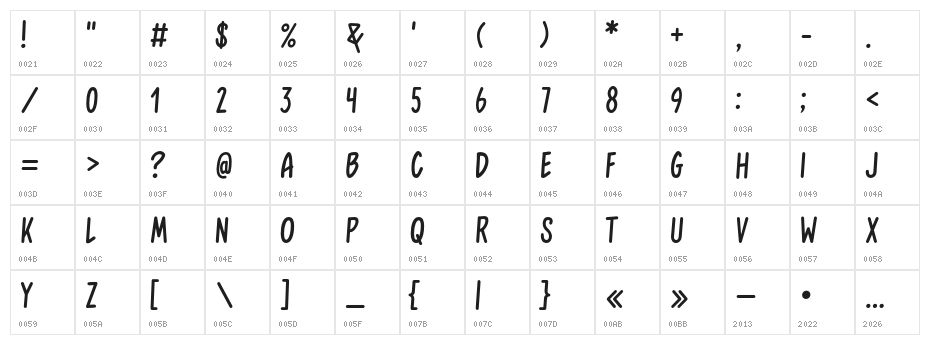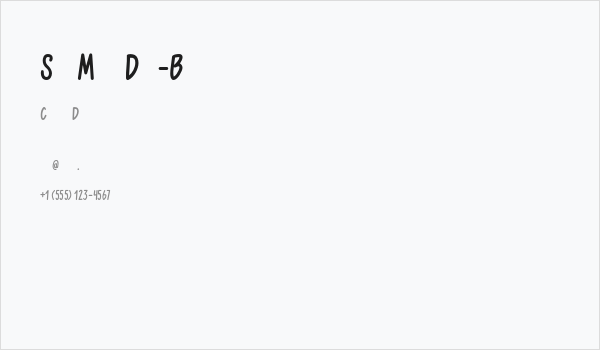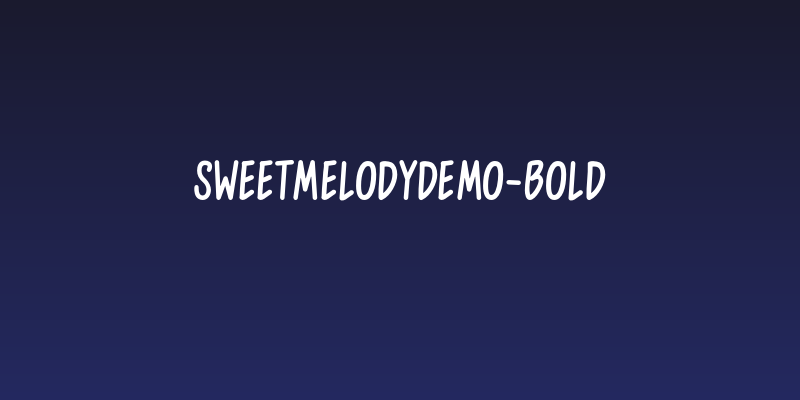
SweetMelodyDemo-Bold Font
SweetMelodyDemo-Bold Description
This font features a playful and energetic style, characterized by its bold and rounded letterforms. The strokes are consistent in thickness, giving it a uniform appearance that is both approachable and friendly. The letters have a slight slant, adding to the dynamic feel of the font. The overall design is clean and legible, making it suitable for a variety of uses where a casual and inviting tone is desired. The numerals and special characters maintain the same playful aesthetic, ensuring consistency across all text elements.
| Use Case | Headlines, Logos, Social Media |
| Proposed Projects | Ideal for children's books, playful branding, casual invitations, and social media graphics. |